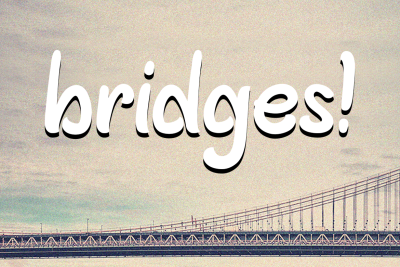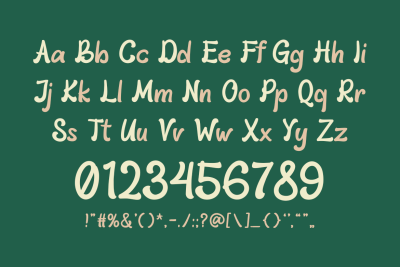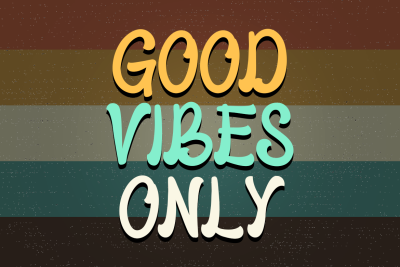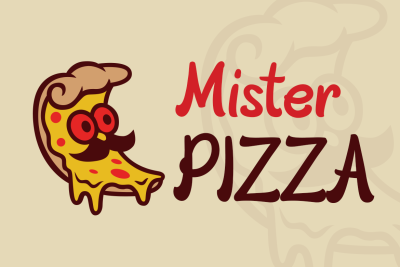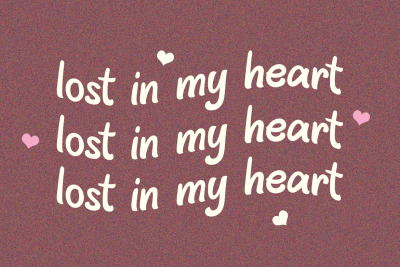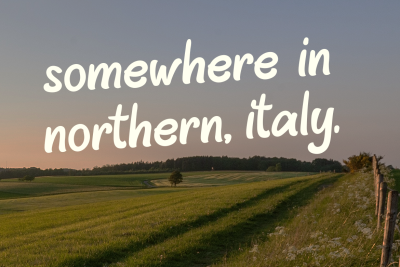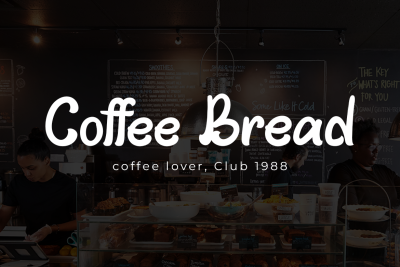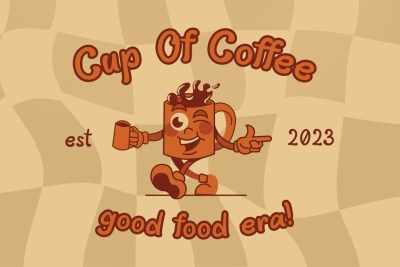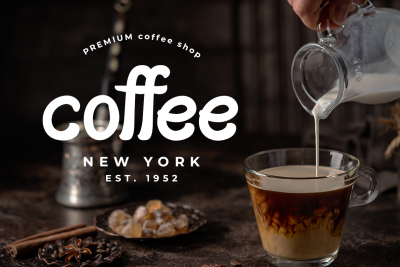
Handwriting Font Alhambra
Alhambra
Handwriting Font Alhambra is a smooth, stylish, and expressive handwritten font. It radiates warmth and creativity. Designed with fluid strokes and rounded edges, this font brings friendliness and elegance to any project. Inspired by classic calligraphy yet modernized for contemporary use, Alhambra captures handcrafted lettering with a natural and dynamic flow, offering a warm, nostalgic feel that’s perfect for various creative projects.
With its clean, bold curves and well-balanced letterforms, Handwriting Font Alhambra adds personality and charm to your designs. Furthermore, its organic strokes provide movement, making it a great choice for projects that need both sophistication and playfulness. Whether you’re working on branding, invitations, or editorial content, this font enhances your message while ensuring legibility and style. Moreover, its versatility suits both digital and print applications, ensuring a polished and professional look.
Handwriting Font Alhambra Suitable For
Handwriting Font Alhambra is ideal for designers, content creators, and businesses seeking authenticity and character. Specifically, this font works well for:
• Branding and Logo Design – Creates a signature-style identity for boutique shops, cafes, and creative businesses.
• Wedding Invitations and Stationery – Adds a personal, handcrafted touch to invitations, RSVP cards, and greeting notes.
• Social Media and Content Creators – Enhances Instagram posts, Pinterest graphics, and YouTube thumbnails with style.
• Book Covers and Editorial Design – Improves typography for poetry books, novels, and magazine headlines.
• Handmade Product Packaging – Works beautifully for artisan brands, organic products, and DIY crafts.
• Creative Marketing Materials – Ideal for posters, flyers, and promotional content that need elegance and playfulness.
As a result, Alhambra blends charm and professionalism, making it a go-to font for stylish handwritten typography. Whether working on a passion project, crafting a brand identity, or designing eye-catching visuals, this font balances creativity and refinement. Ultimately, add warmth and personality to your work with Handwriting Font Alhambra and let your designs stand out effortlessly.